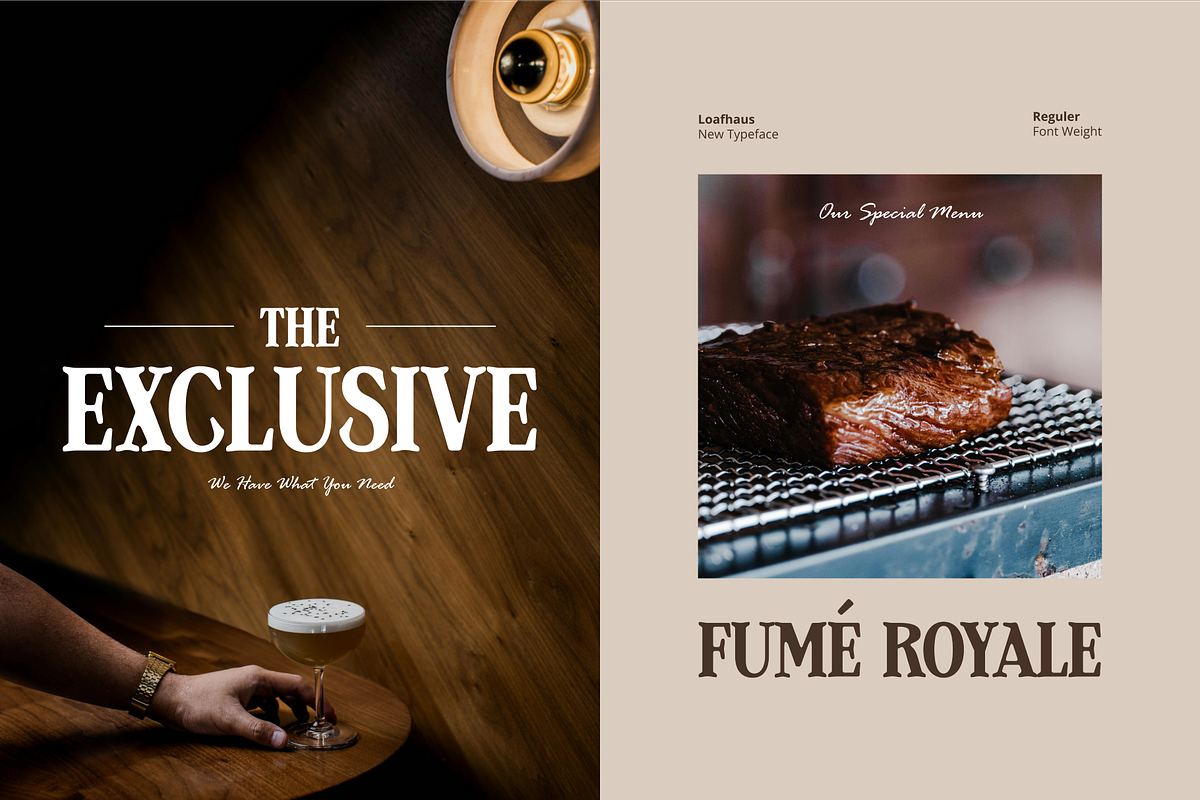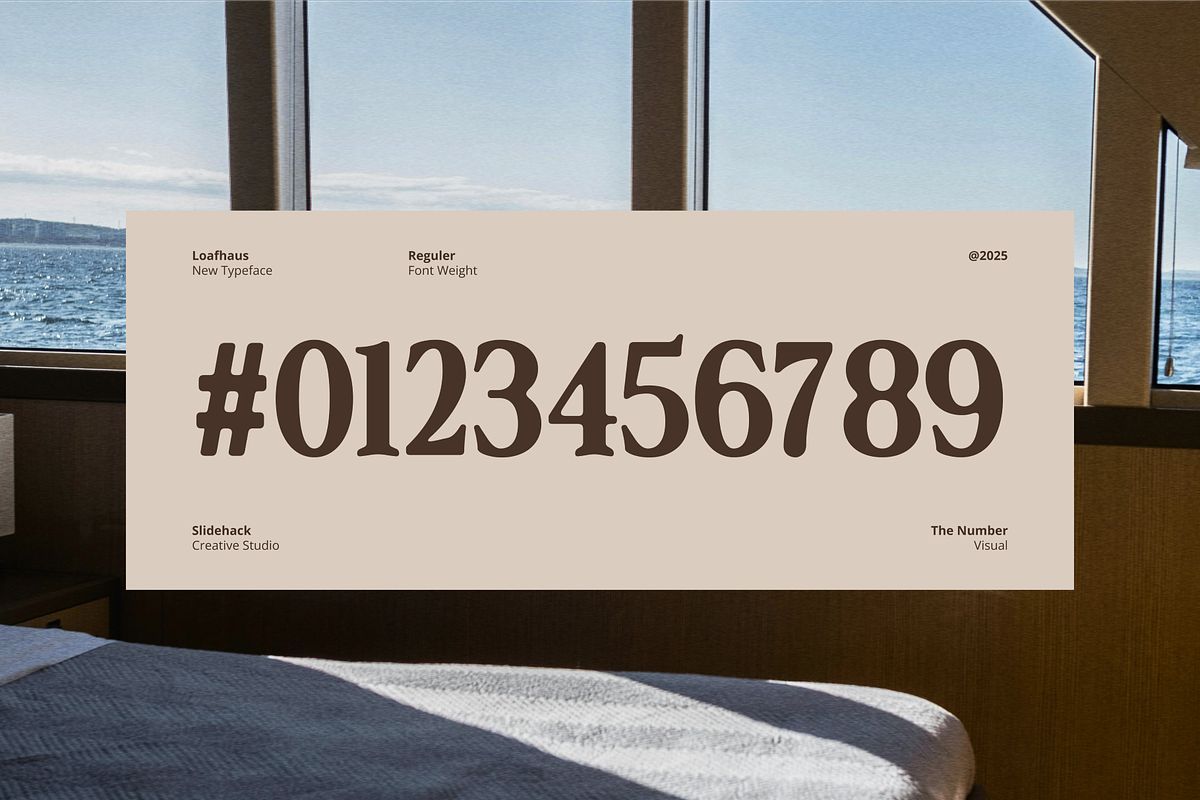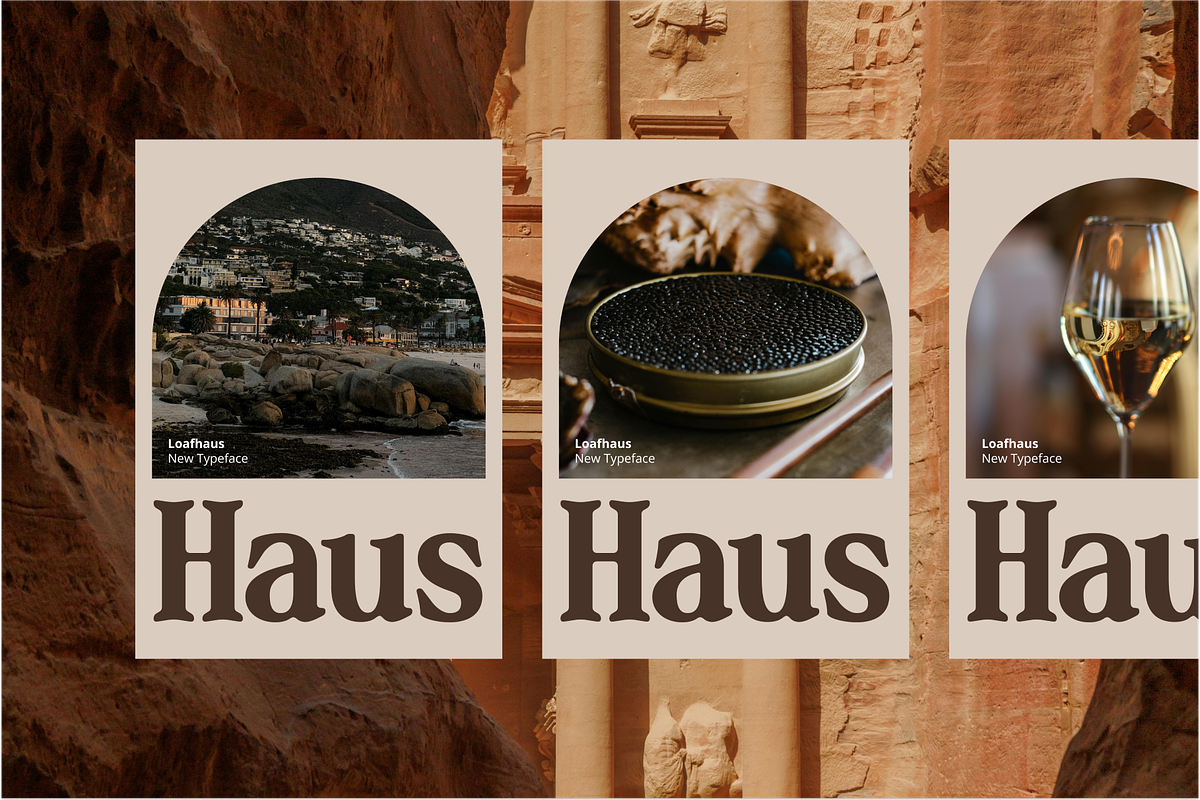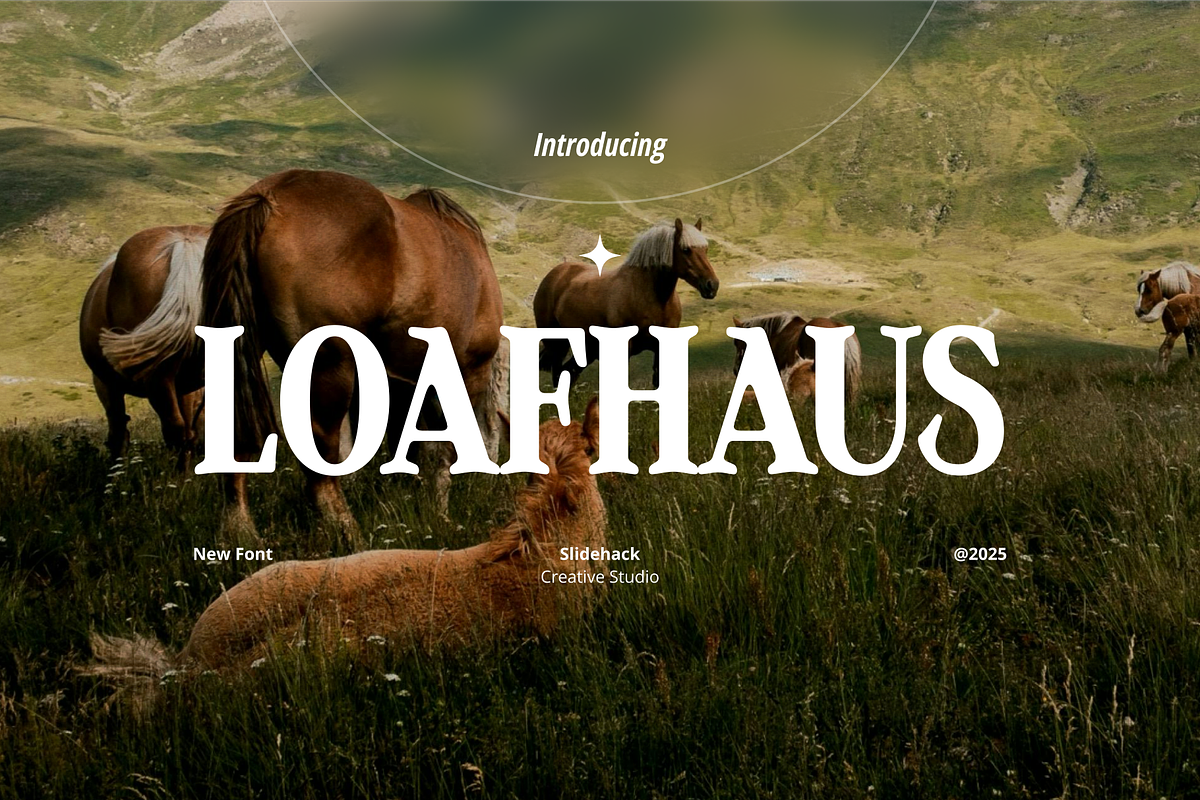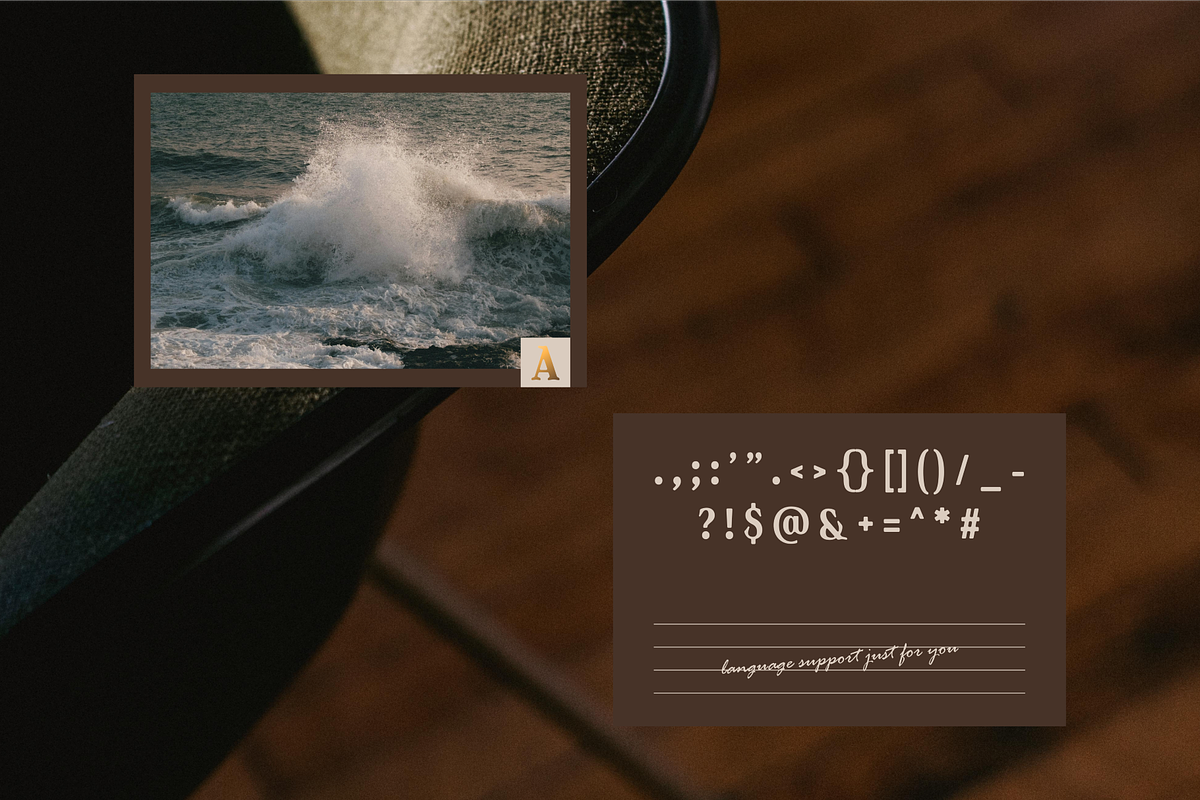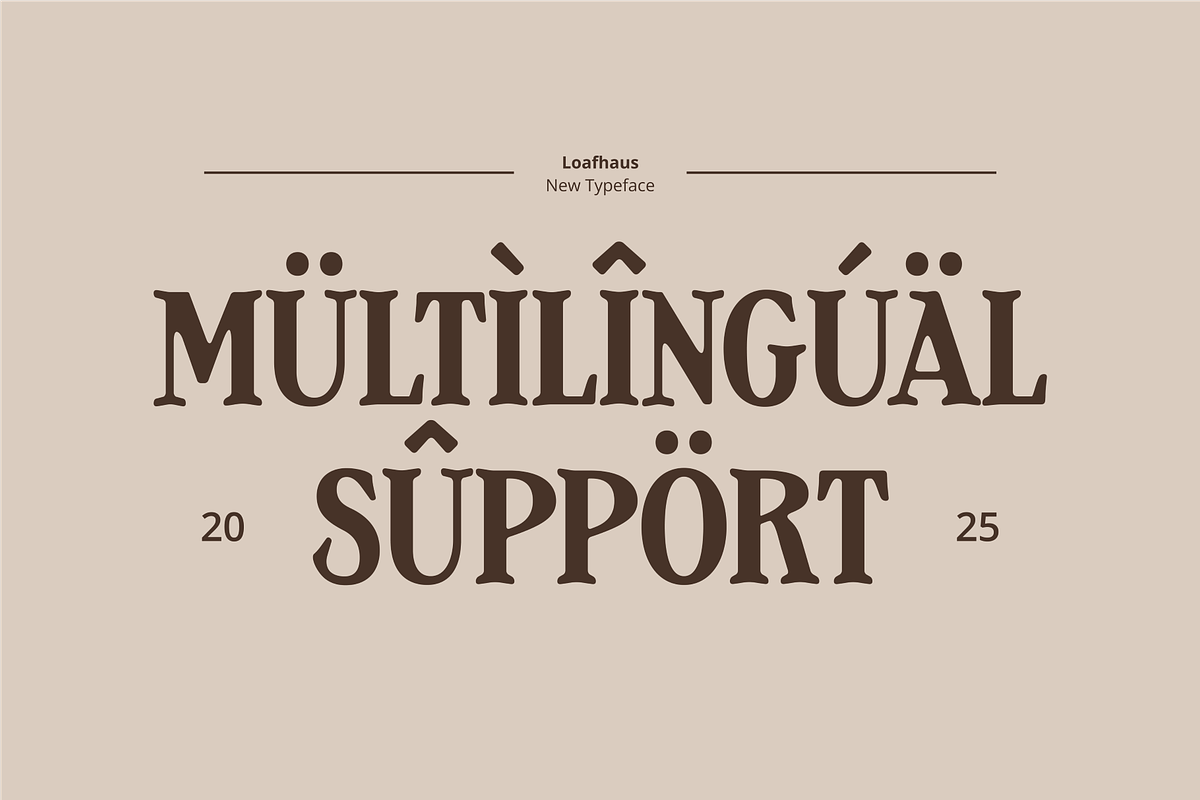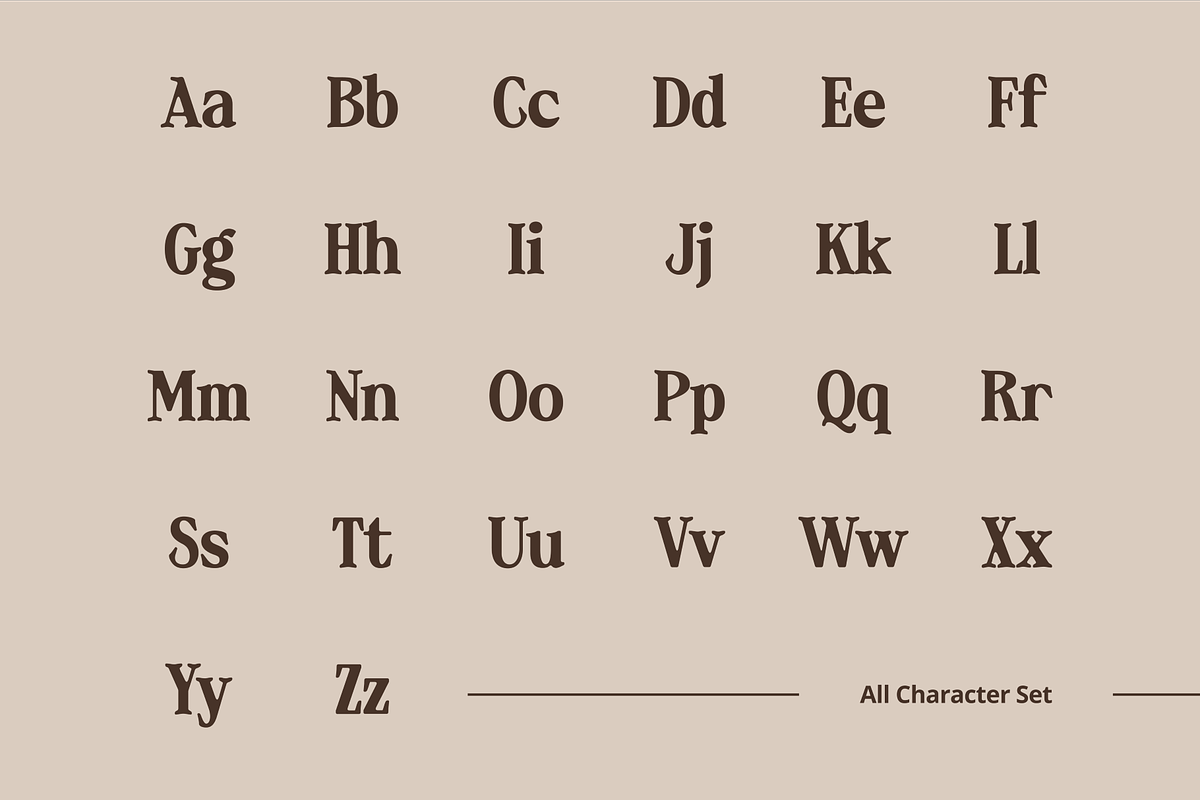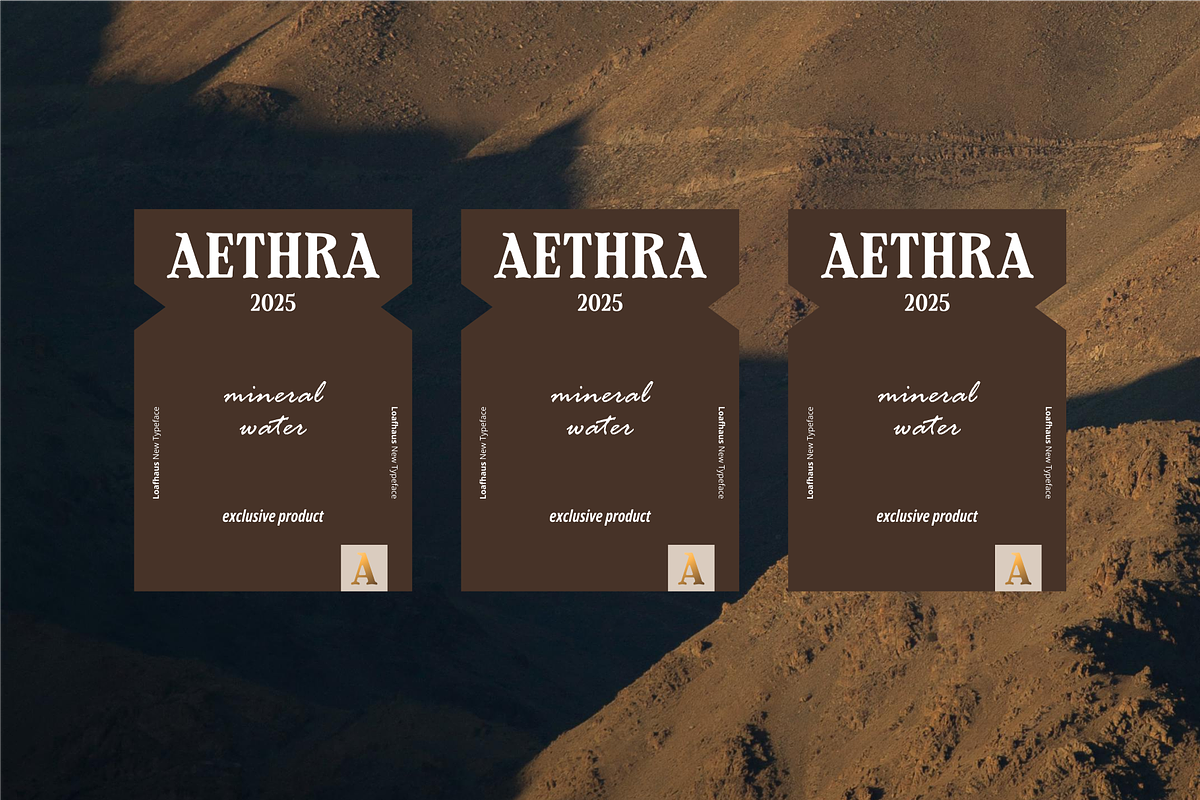
Loafhaus - Vintage Serif Display Fon
Loafhaus is a bold serif display font with vintage charm and strong character, perfect for editorial titles, branding, logos, and packaging. Inspired by old-style western and classic book typefaces, Loafhaus blends elegance and rustic spirit. Ideal for designers seeking high-impact headlines with a timeless, handcrafted aesthetic.